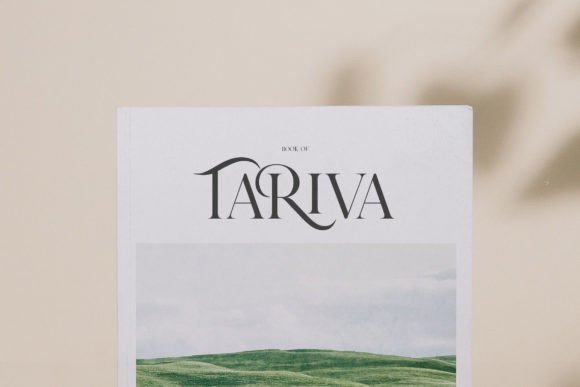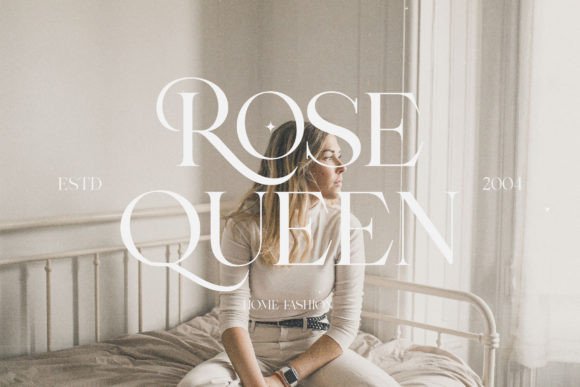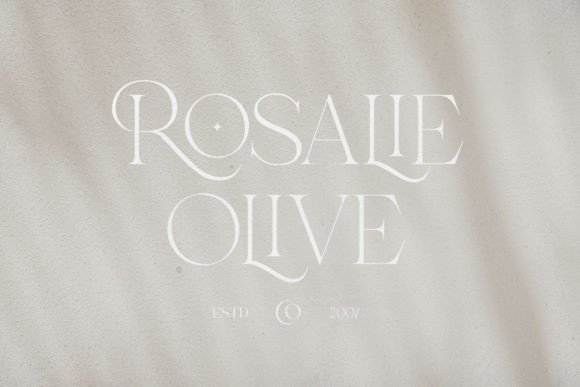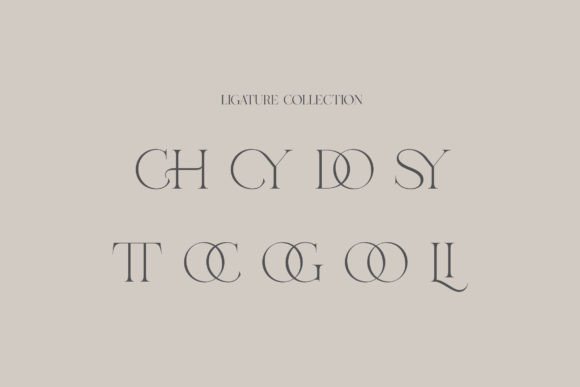
Rusilla Serif Font
Rusilla Serif is a sophisticated serif typeface. Perfectly to be applied to other various formal forms such as invitations, labels, logos, magazines, books, greeting/wedding cards, packaging, fashion, makeup, stationery, novels, labels or any type of advertising purpose.